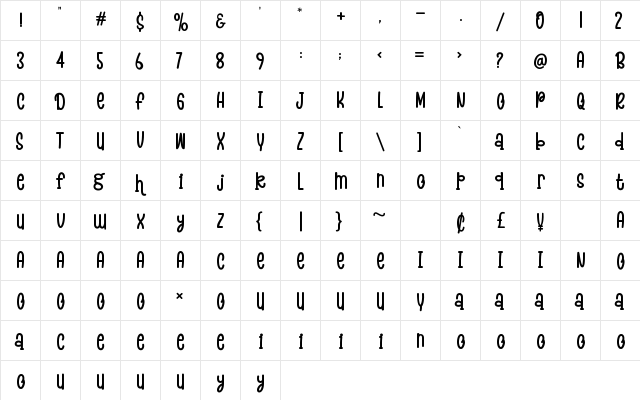
Baking Pastry Regular
Design Context for Baking Pastry Typeface
Baking Pastry is a composed and adaptable typeface that performs quietly and consistently across a wide range of design contexts.